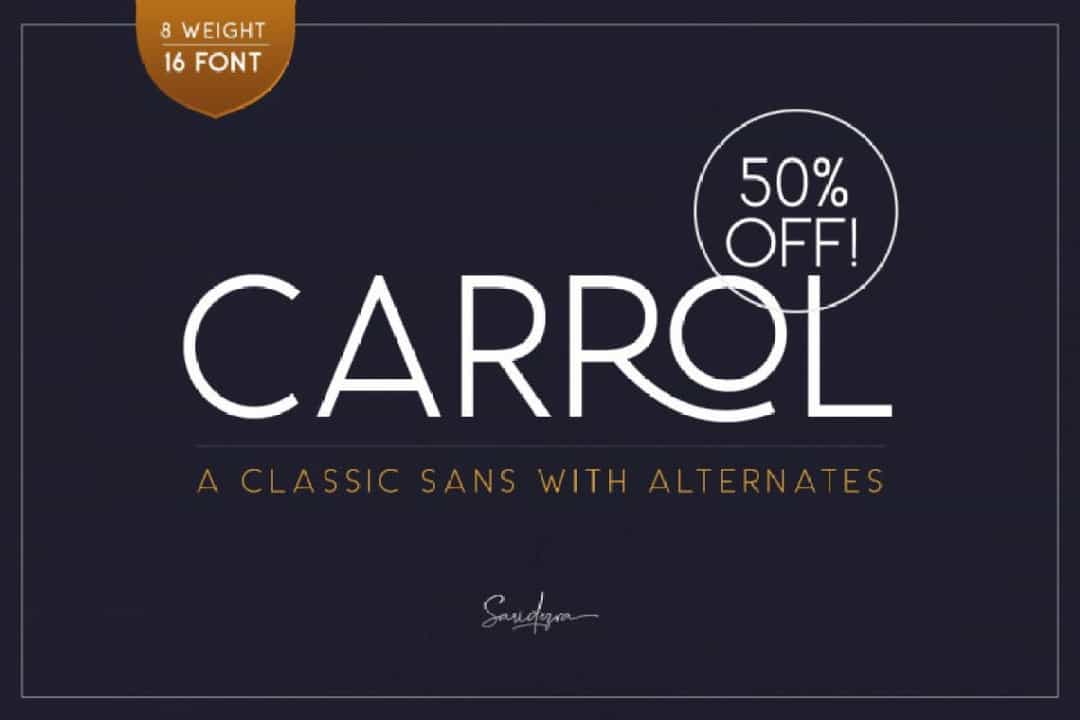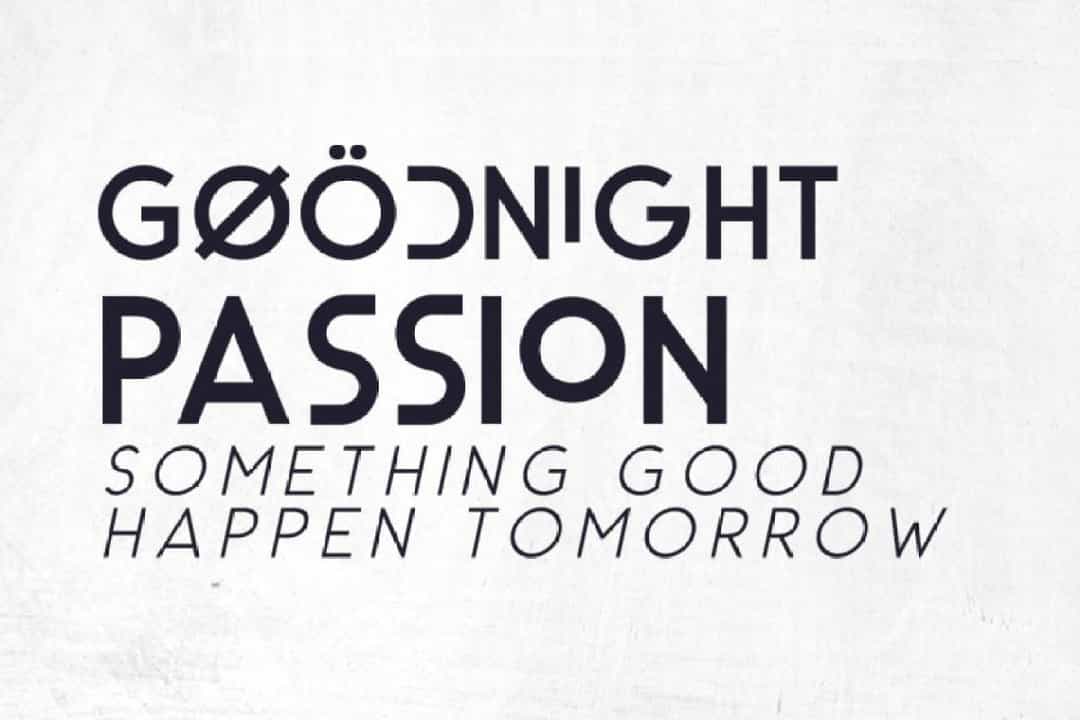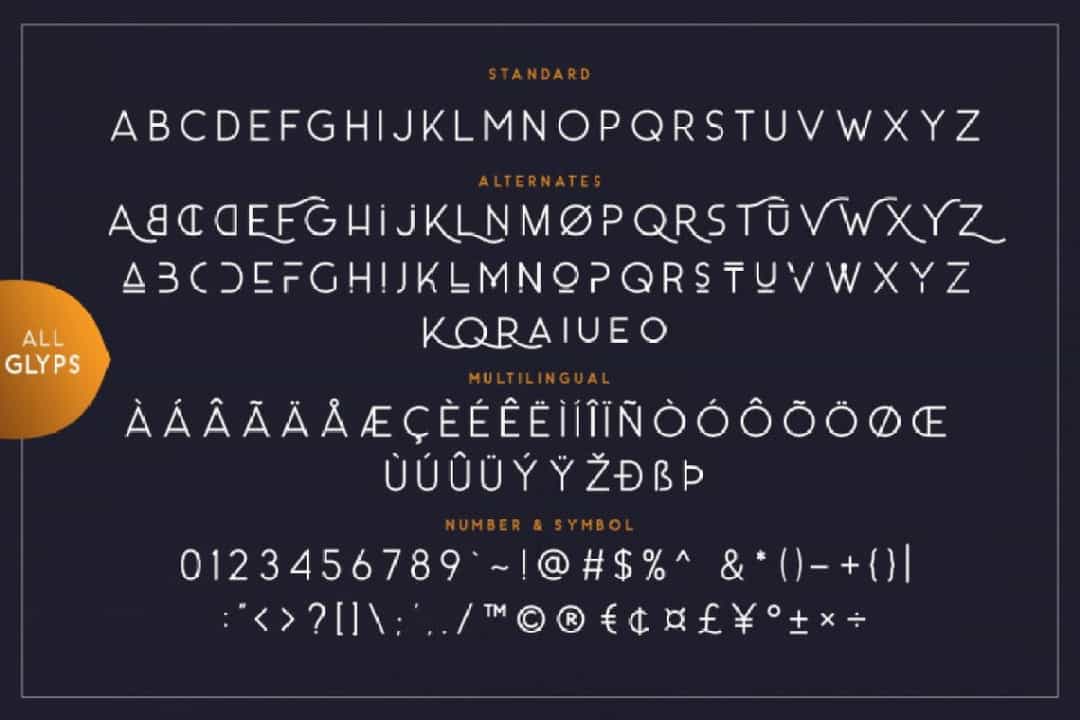
Carrol is a traditional and modern sans style font with 3 versions of every alphabet letter that can be switched to meet your needs! Great for logos, titles, pull quotes and it also works well with any script font for multilingual purposes. It also supports multi-language!